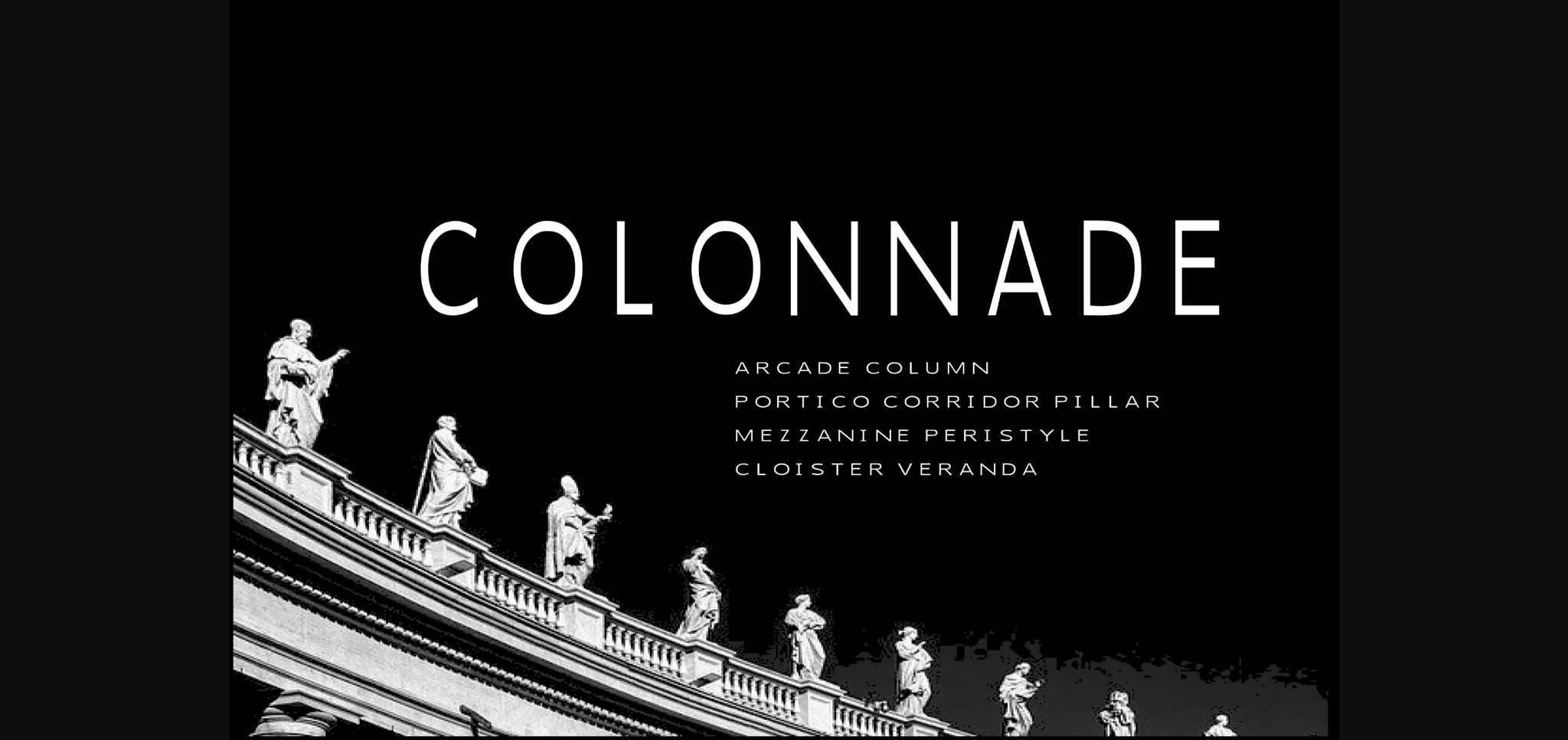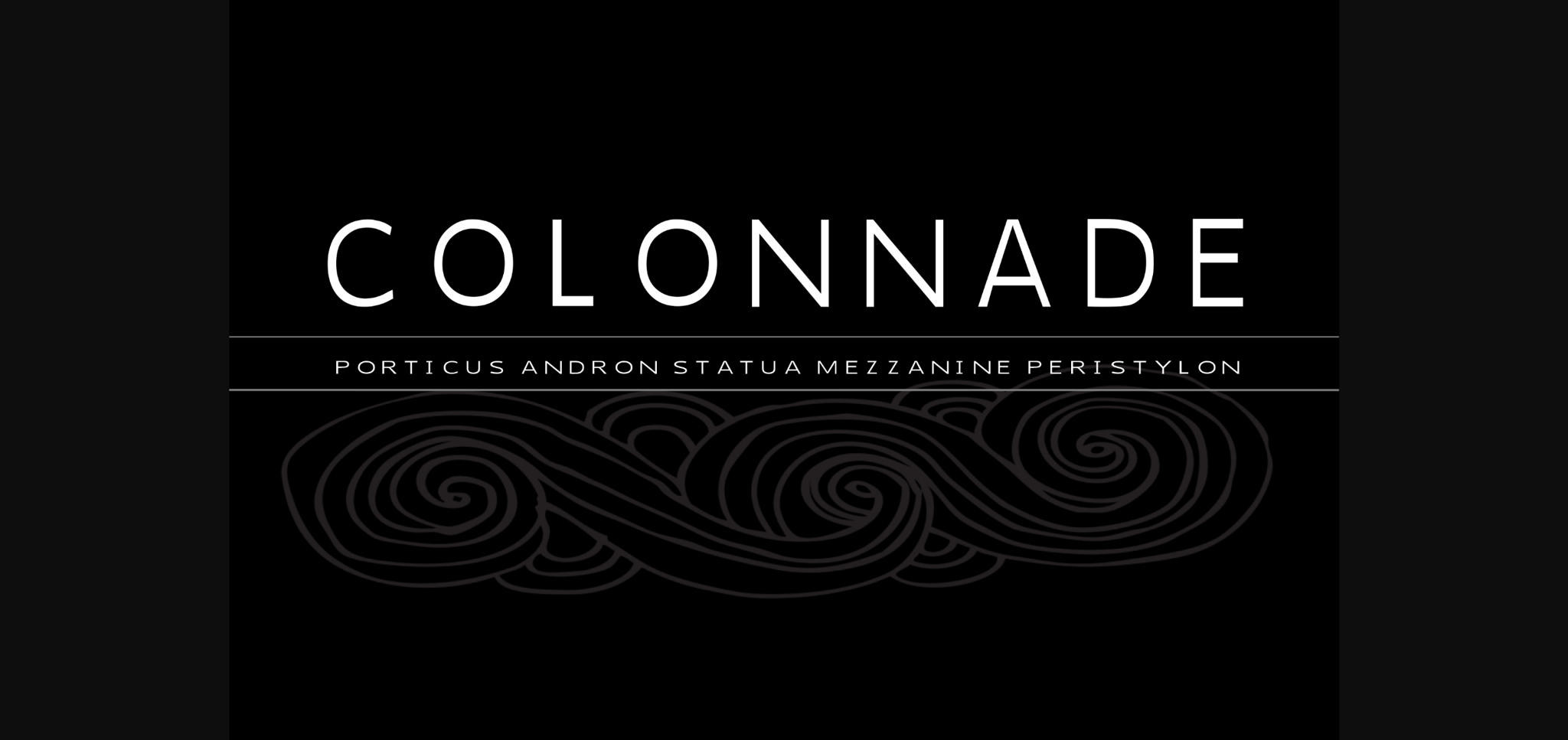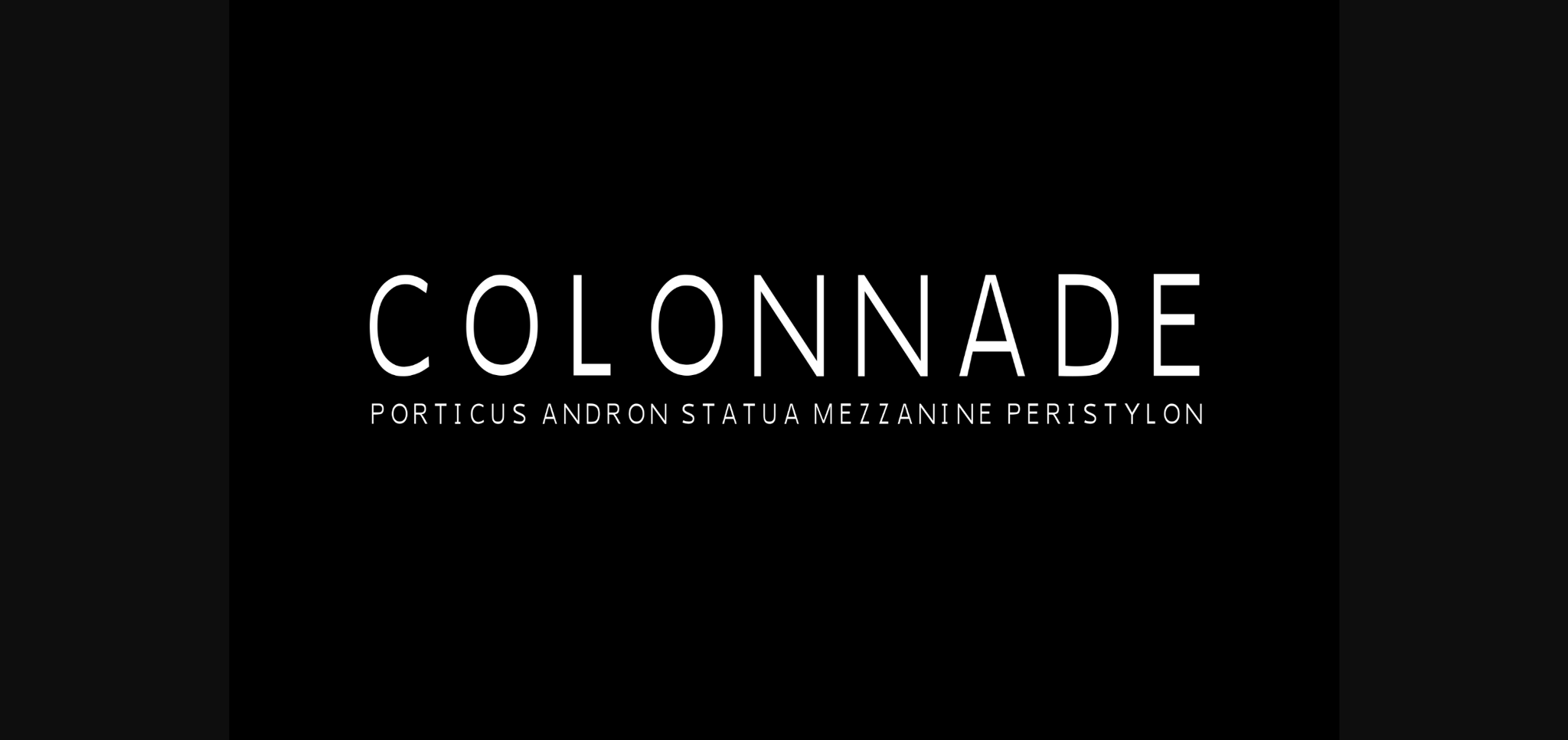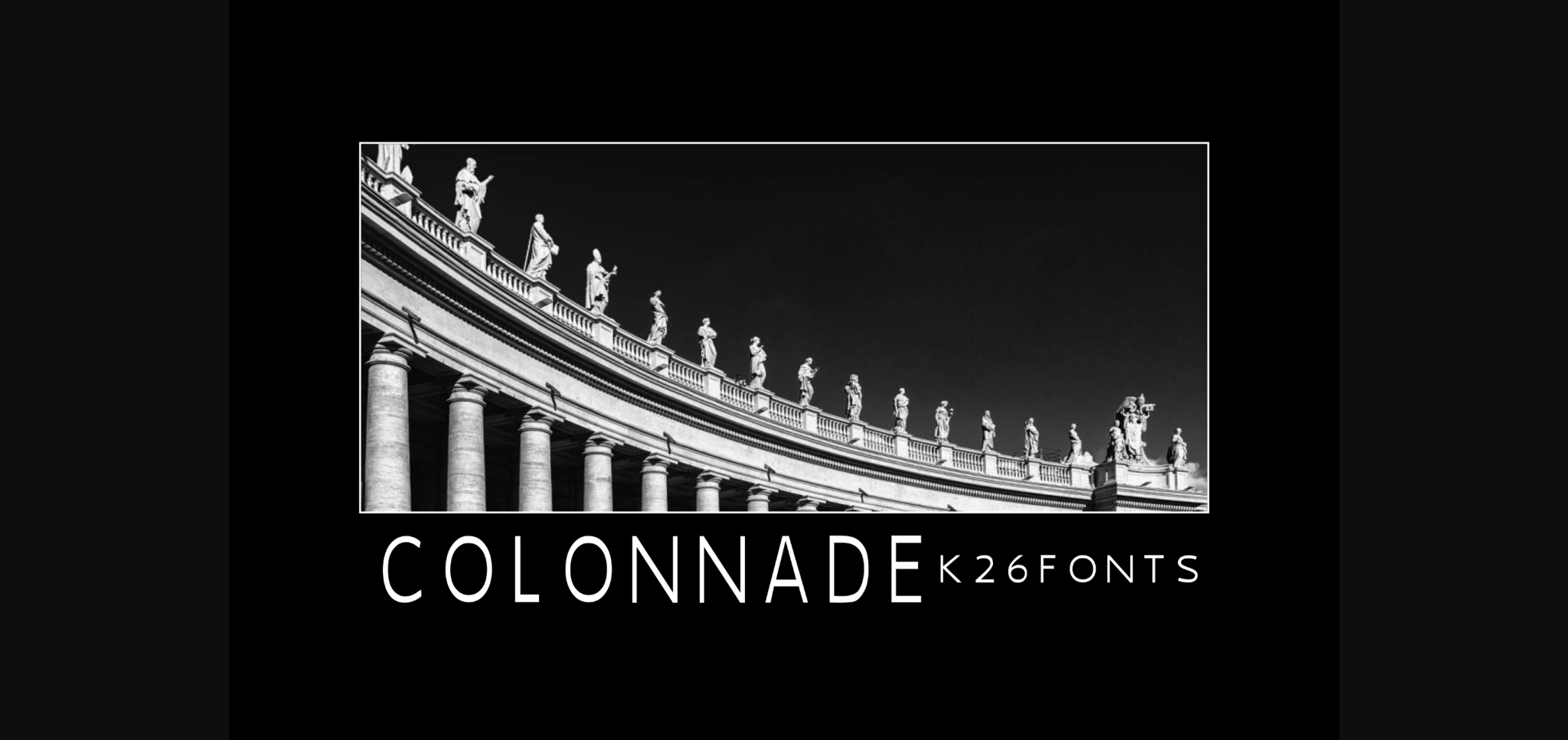
About Colonnade Font
Colonnade is a clean, simple font for advertising, brochures, presentations and website design. Design your logo and advertising campaign with this professional corporate business font.